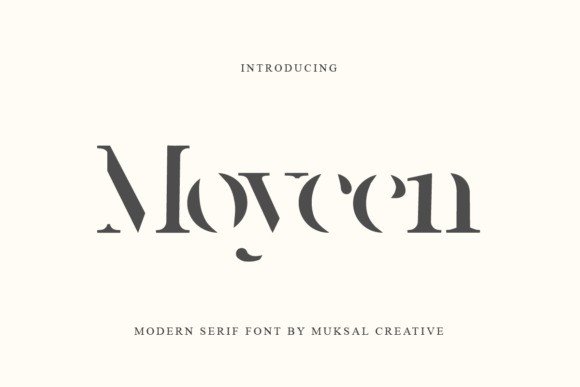
Moycen Display Font
Moycen Display Font is perfect if you are in need of a fresh new elegant, rich and expensive feel. Made from font designer named Muksal Creative. This typeface is a modern and incredibly distinct serif font. It celebrates abstract shapes in all their eclectic beauty. Add it to your favorite design ideas and notice how it makes them come alive!